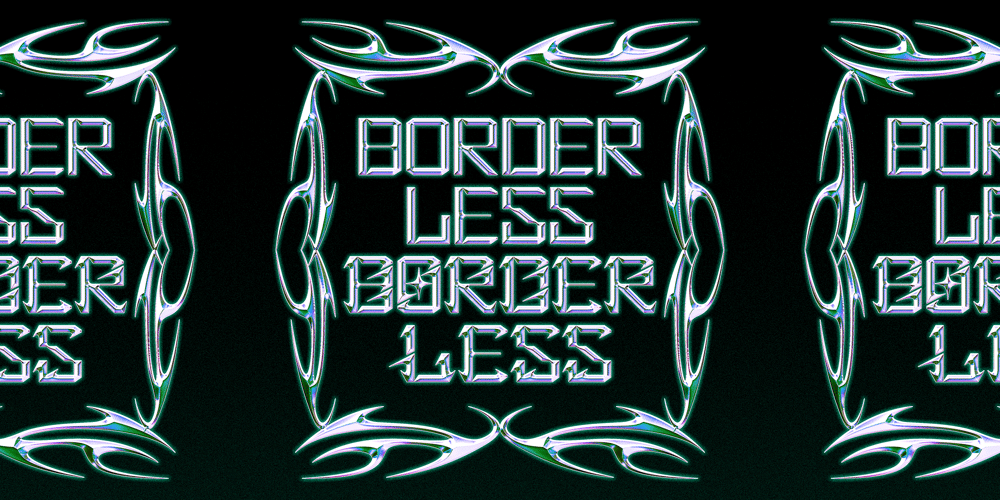
Borderless Font Family was designed by Moon Young and published by Lazy Holiday Studio. Borderless contains 2 styles and family package options. This font is characterised by a sleek shape.There are two versions, regular and black.Included:-Uppercase and Lowercase-Number and Punctuation